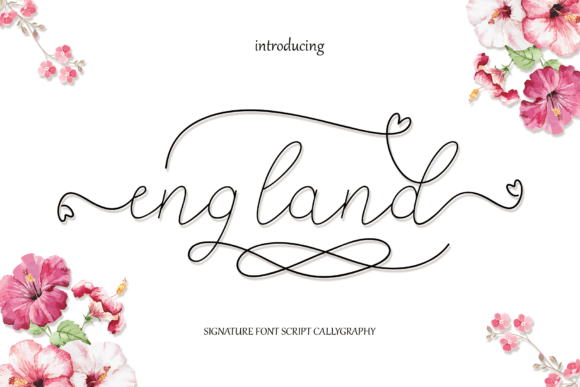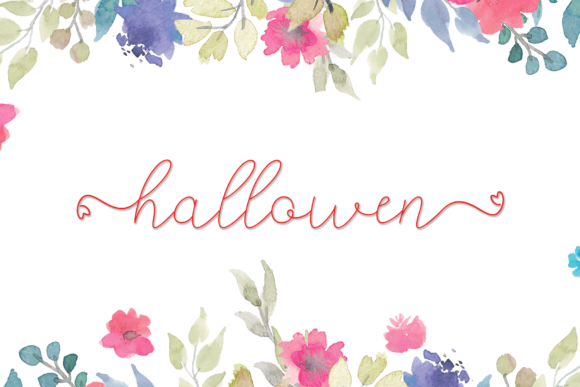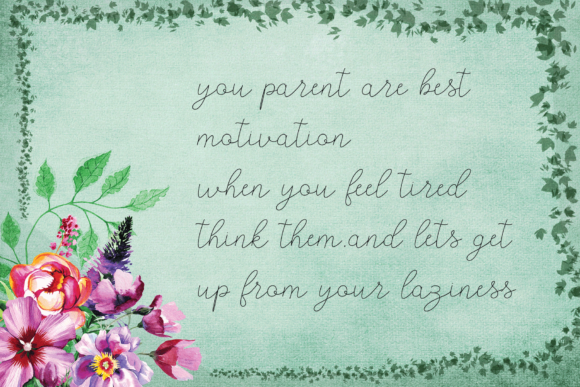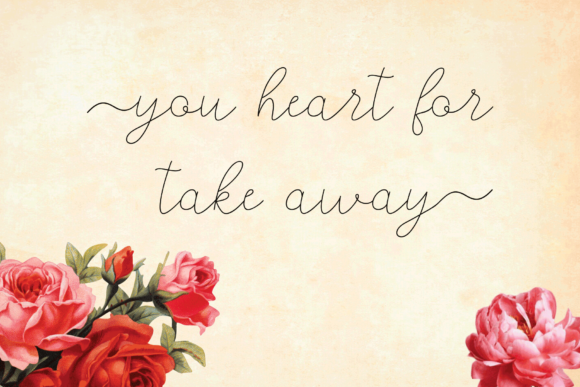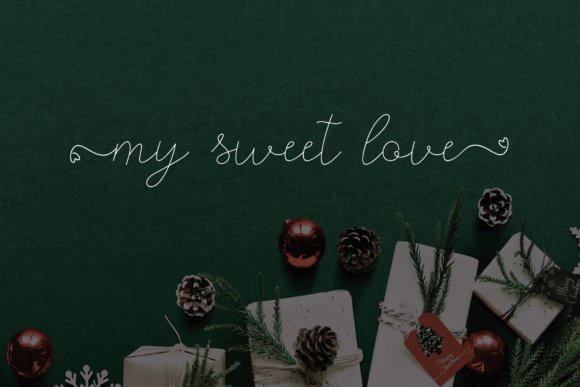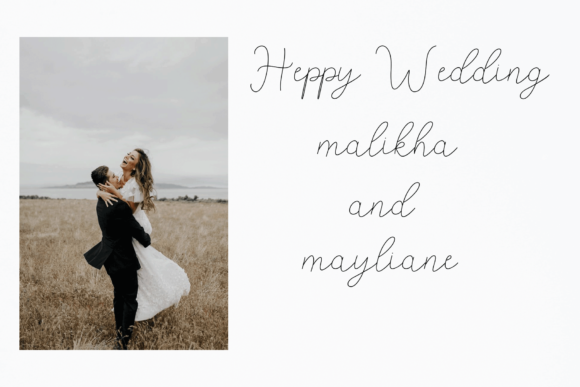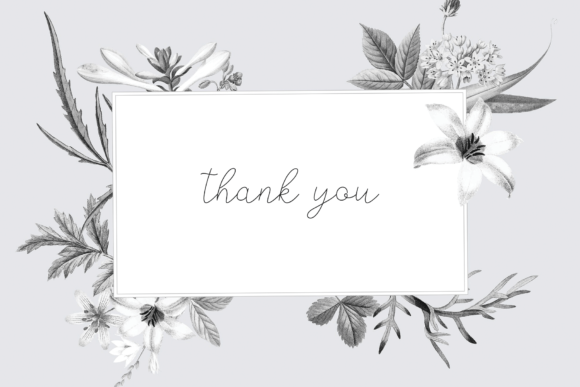
HomeScript FontsEngland Font Script Fonts England Font FacebookXPinterestWhatsApp England Font Poster 2 England Font Poster 3 England Font Poster 4 England Font Poster 5 England Font Poster 6 England Font Poster 7 About England Font England is a sweet and natural handwritten font. Get inspired by its modern look! DOWNLOAD ON CREATIVE FABRICAThis font is sold and delivered by Creative Fabrica. Font Canyon may earn a commission if you buy through this link. People also explored Seek Truth Font Carletone Font Motisan Font Sherlyn Font Anderik Font Dear Jerman Font Jude Font Aletta Martta Font Signature Font 367 0 TagsEngland Font Previous articleLarasaky FontNext articleKidzone Font LEAVE A REPLY Cancel reply Comment: Please enter your comment! Name:* Please enter your name here Email:* You have entered an incorrect email address! Please enter your email address here Website: Save my name, email, and website in this browser for the next time I comment. Personal Use Free Dream Personal Use Free Read more about this font Delions Personal Use Free Read more about this font Made of Concrete Personal Use Free Read more about this font Luxima Personal Use Free Read more about this font BLOG Exploring Font Trends Shaping Communication in the Digital Era Fonts, like all design elements, are subject to trends. They play a crucial role in communicating a brand's personality,... Free Fonts Risk: Why Free Fonts Can Be Dangerous for Designers How to Install and Use Fonts on Windows, macOS, and Web Projects Best Fonts for T-Shirt Design – Top 2025 Picks